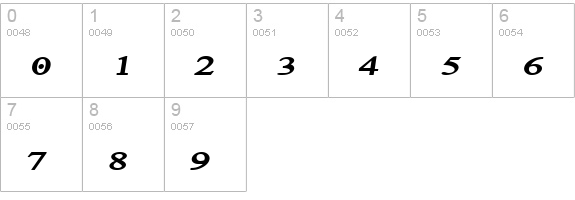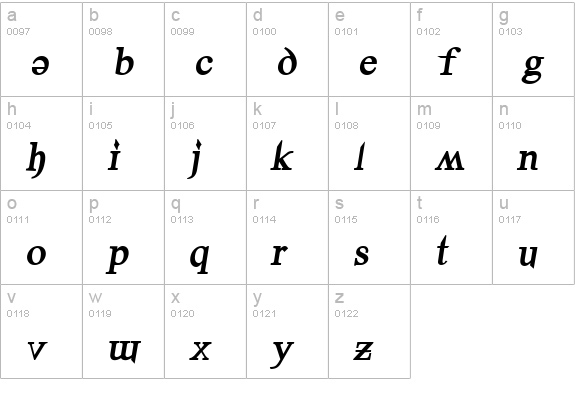
Denial2RegularBoldItalics Font Details
Introducing Denial2RegularBoldItalics font, a striking and versatile typeface that exudes sophistication and elegance. This font features a unique blend of boldness and italics, making it perfect for creating eye-catching designs that demand attention. Denial2RegularBoldItalics font is ideal for a wide range of design projects, from logos and branding to advertisements and social media graphics. Its sleek and modern look will make your text stand out and leave a lasting impression on your audience. Best of all, Denial2RegularBoldItalics font is available for free download at FontsMarket.com. Don't miss out on the opportunity to enhance your designs with this stylish and impactful font. Download it now and elevate your typography game to the next level!